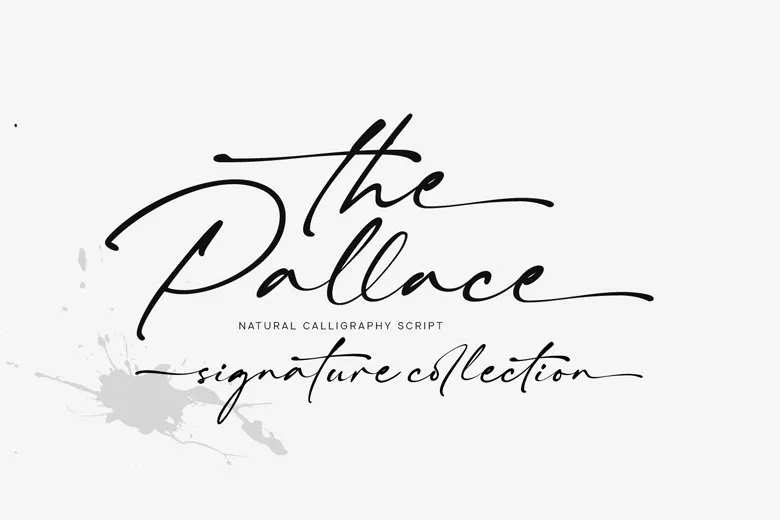
The Pallace Font
The Pallace is a charming and elegant handwritten script font. This beautiful handwritten font is an accurate representation to modern stylish writing known as calligraphy. It has variable baseline, graceful curves, beautiful characters and awesome alternate characters.
Begin to fall in love with this incredibly unique style and incorporate it into fabulous wedding invitations, artistic and creative cards, marvelous social media share designs, and so much more!
The Pallace Handwritten Script Font